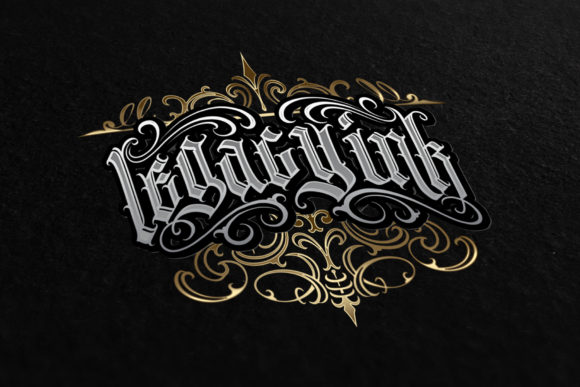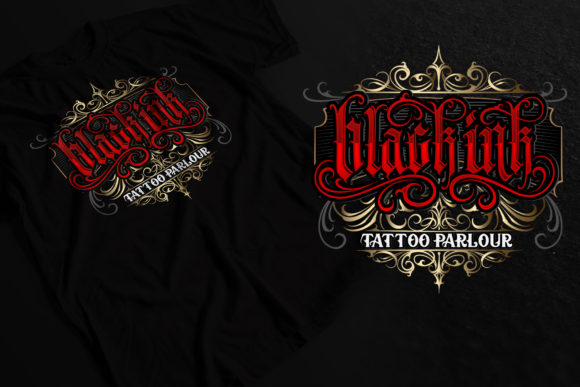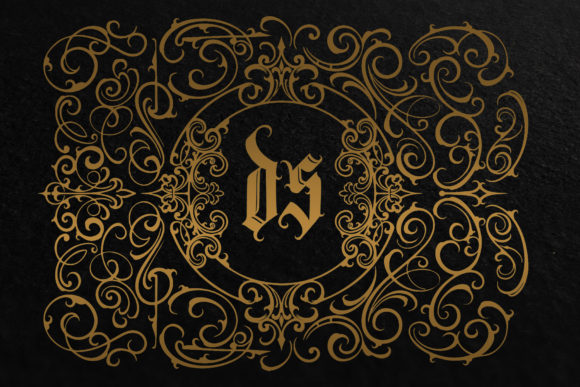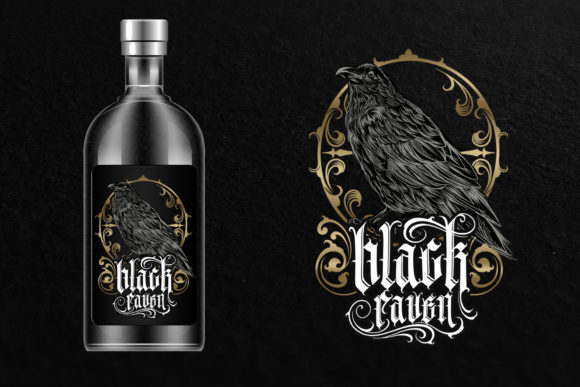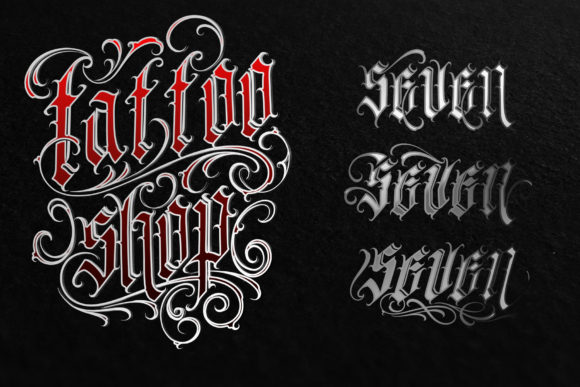
Introduction to Sinner Font
Sinner is an incredibly unique and distinct blackletter font.
Sinner Font offers exceptional quality and versatility, making it a valuable addition to your design toolkit. Whether you’re creating for personal projects or commercial use, Sinner Font delivers professional results.